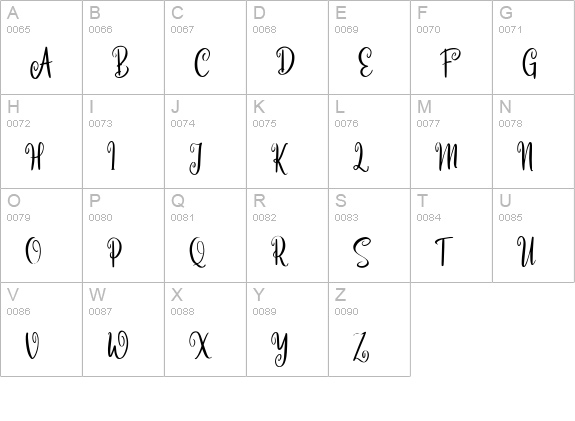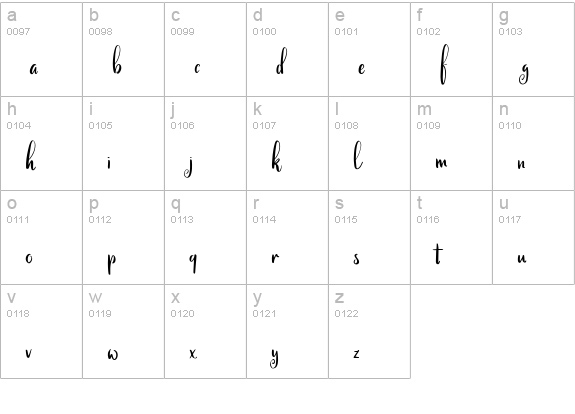
Calinastiya Font Details
Calinastiya is a demo font in the Fancy > Curly category, designed by patria_typestudio. It has been downloaded 56 times and is available for Windows, Mac and Linux.
Calinastiya font is a stunning and elegant typeface that exudes sophistication and charm. With its graceful curves and delicate serifs, this font is perfect for adding a touch of refinement to any design project. Whether used for invitations, branding, or editorial purposes, Calinastiya font is sure to make a lasting impression.
What sets Calinastiya font apart is not only its beauty but also its versatility. It can be used for both headings and body text, making it a versatile choice for a wide range of design applications. The font's timeless design ensures that it will remain a classic choice for years to come.